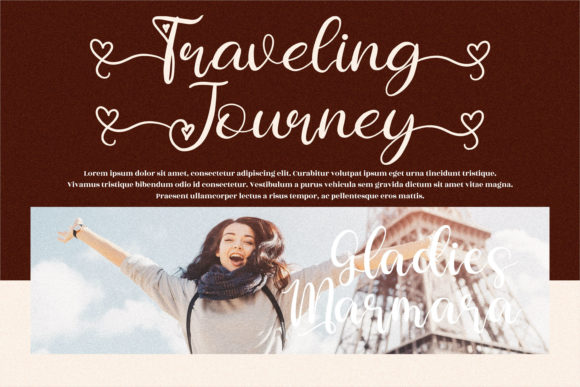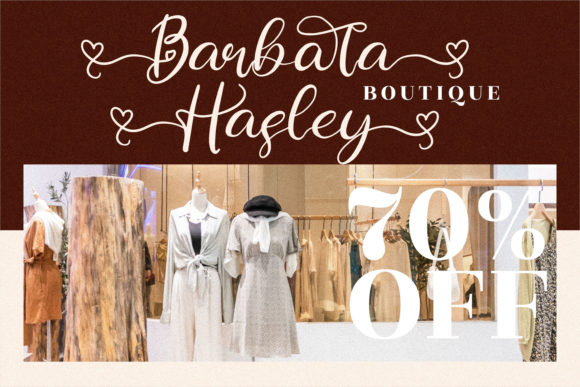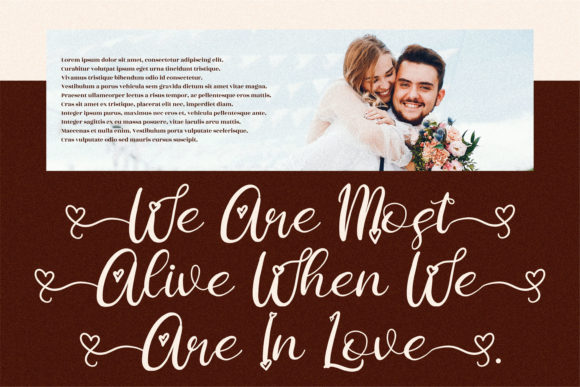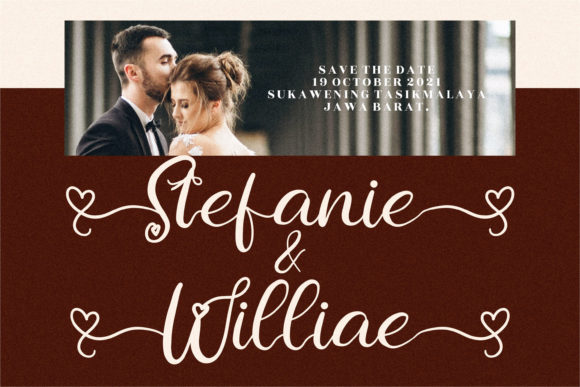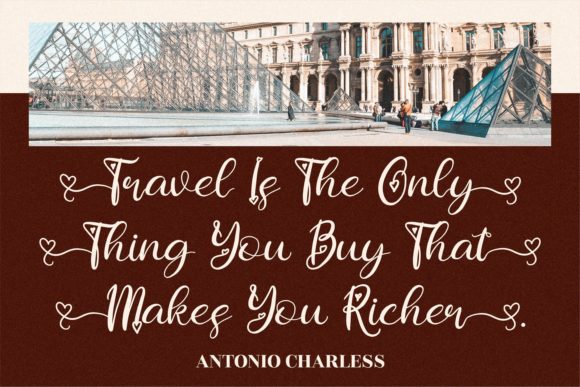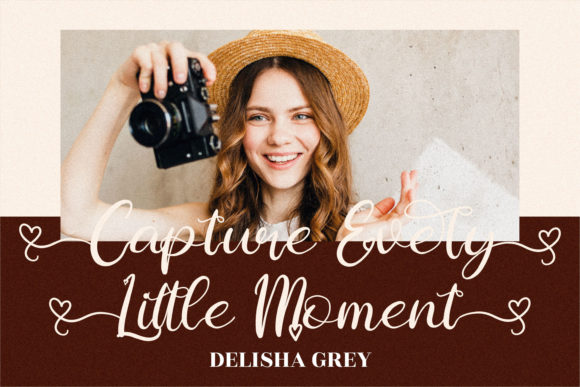
Darinella Font: Elevate Your Designs with Elegance and Sophistication
In the world of typography, few fonts capture the essence of romance and sweetness as beautifully as Darinella. This exquisite calligraphy typeface is designed to add a touch of luxury to any design project, making it a perfect choice for designers and crafters looking to infuse their work with elegance and sophistication. In this article, we’ll delve into the features and benefits of Darinella, exploring how it can elevate your designs and take your creativity to new heights.
The Charm of Darinella
Darinella is a romantic and sweet calligraphy typeface that boasts characters that dance along the baseline, creating a sense of movement and fluidity. This unique feature sets it apart from other fonts, making it an excellent choice for designs that require a touch of whimsy and playfulness. Whether you’re working on a wedding invitation, a branding project, or a packaging design, Darinella is sure to add a luxurious spark that will leave a lasting impression.
PUA Encoding: Easy Access to Amazing Glyphs and Ligatures
One of the standout features of Darinella is its PUA (Private Use Area) encoding. This means that accessing the font’s amazing glyphs and ligatures is incredibly easy, allowing you to unlock the full potential of the font with minimal effort. With PUA encoding, you can effortlessly incorporate swashes, flourishes, and other decorative elements into your designs, taking them to the next level of sophistication and elegance.
Darinella’s versatility is another one of its key strengths. This font can be used in a wide range of design projects, from:
- Branding and packaging designs
- Digital graphics and social media assets
Whether you’re a professional designer or a crafty DIY enthusiast, Darinella offers endless possibilities for creative expression and experimentation.
Why Choose Darinella?
So, what sets Darinella apart from other fonts on the market? Here are just a few reasons why designers and crafters love this beautiful calligraphy typeface:
- Unique and eye-catching design: Darinella’s dancing characters and elegant lines make it a standout font that’s sure to grab attention.
- Ease of use: With PUA encoding, accessing the font’s glyphs and ligatures is incredibly easy, saving you time and effort.
- Versatility: Darinella can be used in a wide range of design projects, making it a valuable addition to any design library.
- Luxurious feel: Darinella’s sophisticated and elegant design makes it perfect for high-end branding and luxury packaging designs.
Tips for Getting the Most Out of Darinella
To truly unlock the potential of Darinella, here are a few tips to keep in mind:
- Experiment with different sizes and colors: Darinella looks stunning in a variety of sizes and colors, so don’t be afraid to experiment and find the perfect combination for your design.
- Mix and match with other fonts: Darinella pairs beautifully with other fonts, so try combining it with a sans-serif or serif font to create a unique and eye-catching design.
- Use the font’s glyphs and ligatures: With PUA encoding, accessing the font’s glyphs and ligatures is easy, so be sure to take advantage of these decorative elements to add an extra touch of elegance to your design.
In conclusion, Darinella is a truly exceptional font that offers designers and crafters a unique and luxurious way to elevate their designs. With its romantic and sweet calligraphy style, PUA encoding, and endless design possibilities, Darinella is sure to become a favorite in your design library. Whether you’re working on a high-end branding project or a DIY crafting project, Darinella is the perfect choice for anyone looking to add a touch of elegance and sophistication to their work.